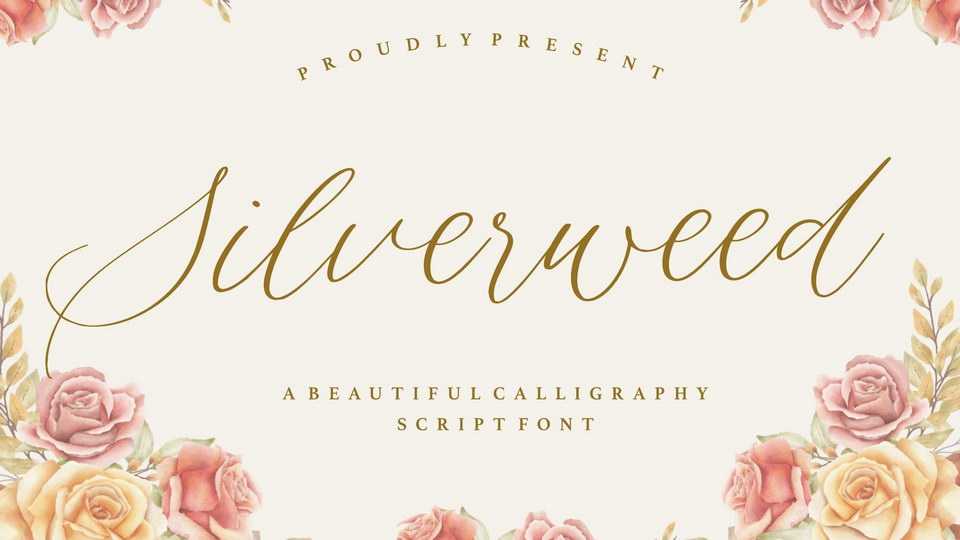
Download Silverweed font, a beautiful calligraphy script with touch of elegance and chic. Silverweed is perfect for product packaging, branding project, magazine, social media, wedding, or just used to express words above the background.